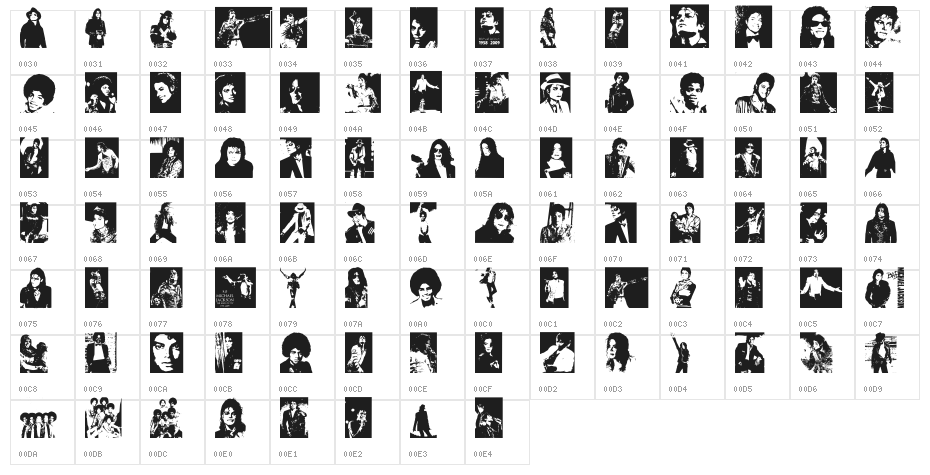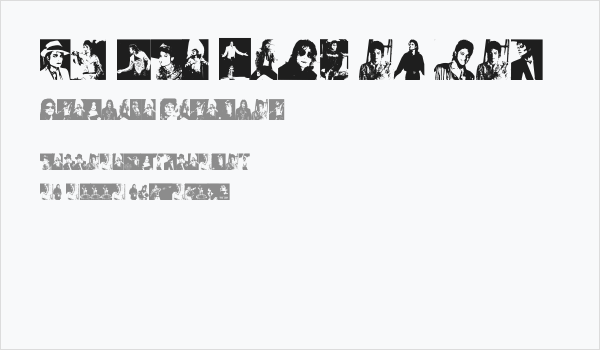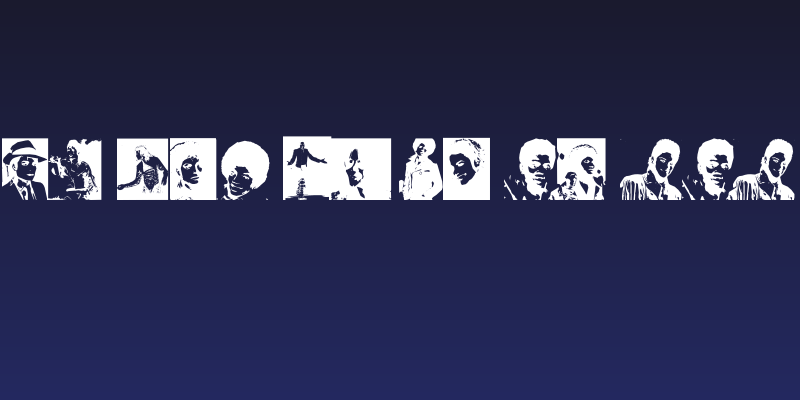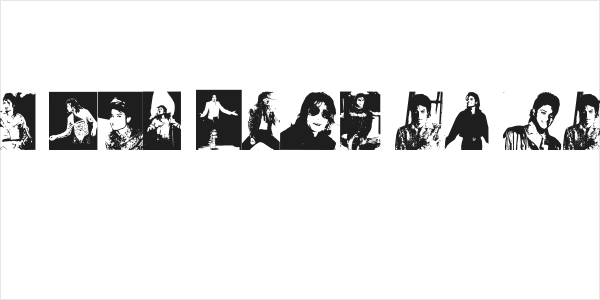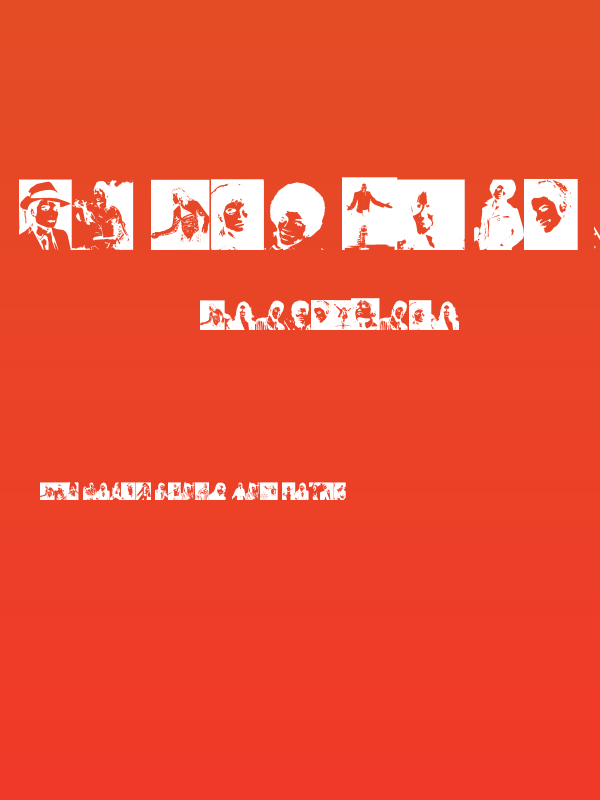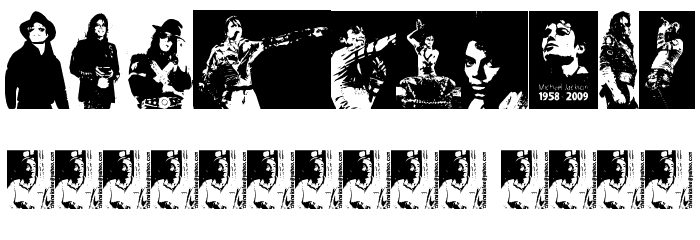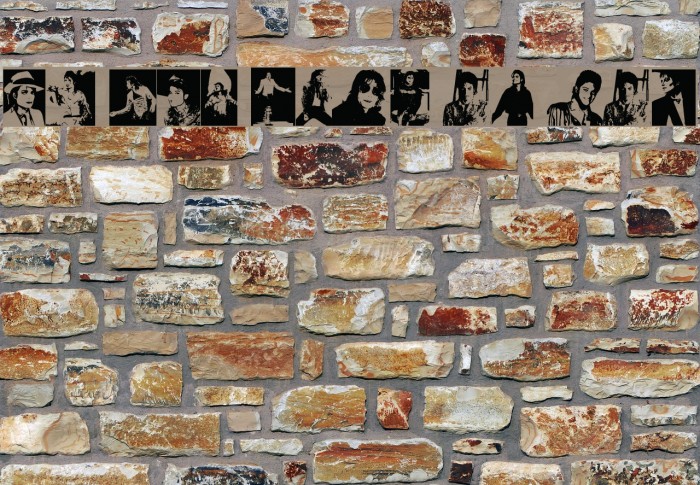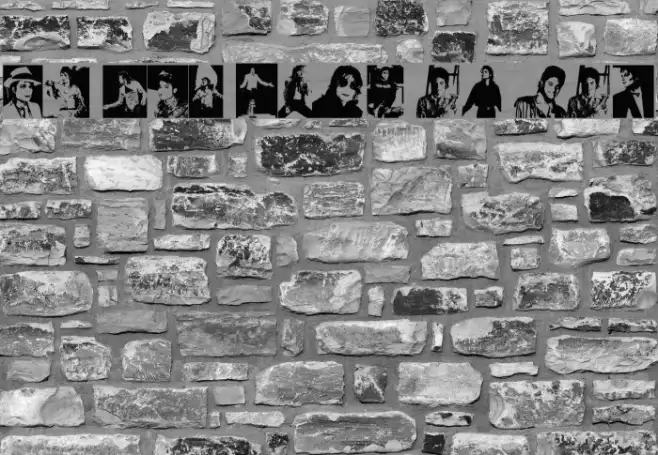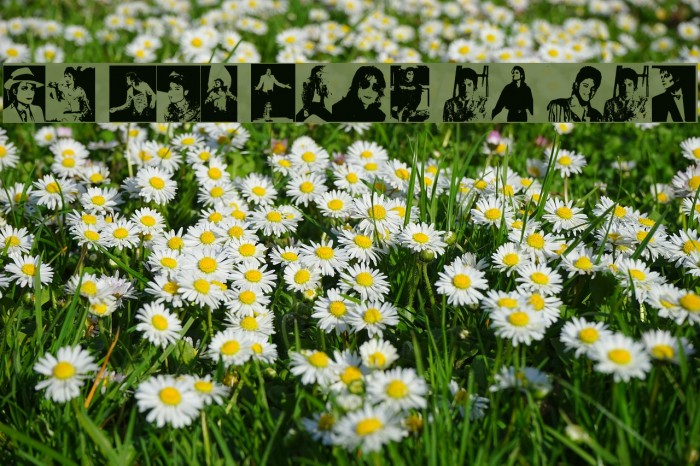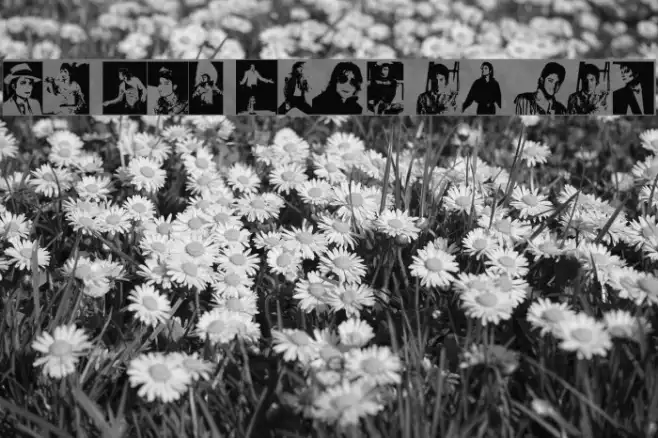
MJ The King of Pop Font
MJ The King of Pop Description
A highly decorative display font composed of black-and-white silhouette illustrations of a famous pop icon in various iconic poses and outfits, with each character represented by a unique image rather than a traditional letterform.
| Overall Style | Decorative, Thematic, Pictorial |
| Use Case | Logos, Posters, Headlines, Themed graphics |
| Proposed Projects | Posters, tribute artwork, themed event invitations, album covers, fan merchandise. |